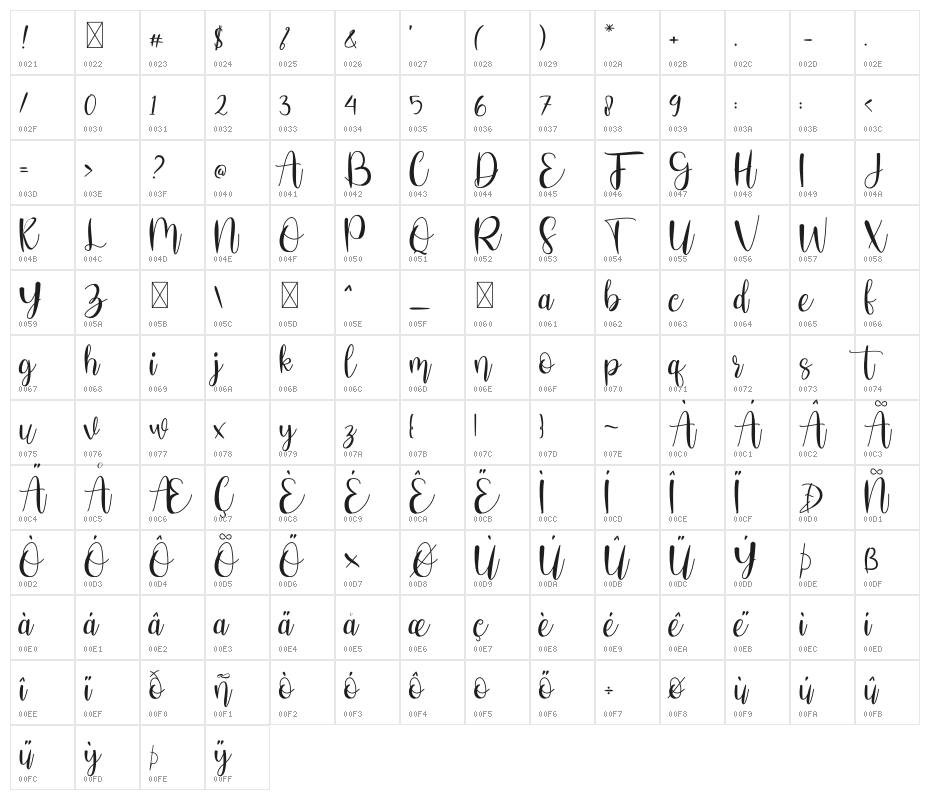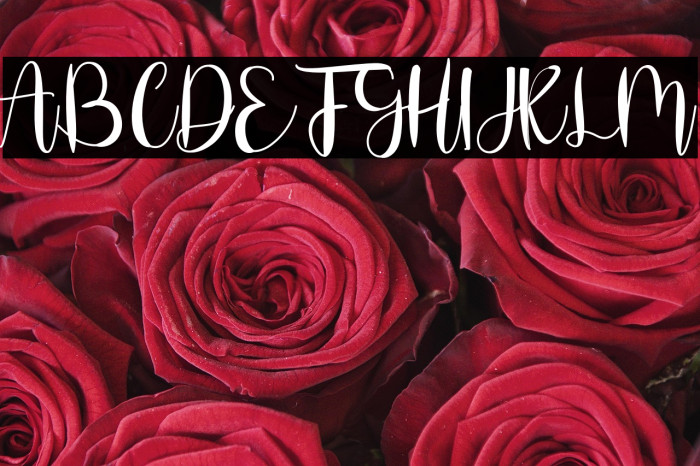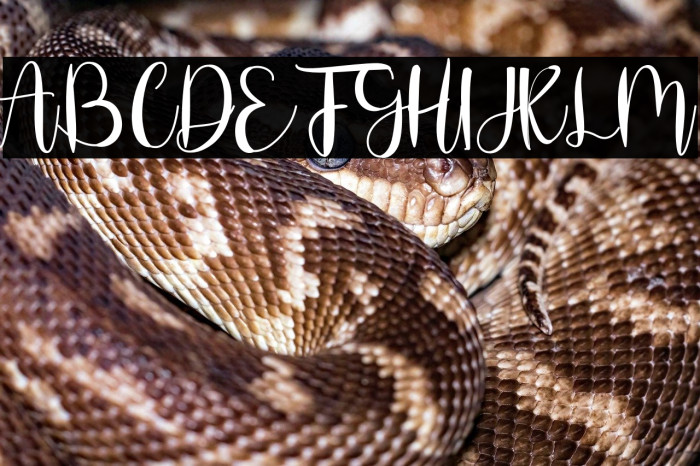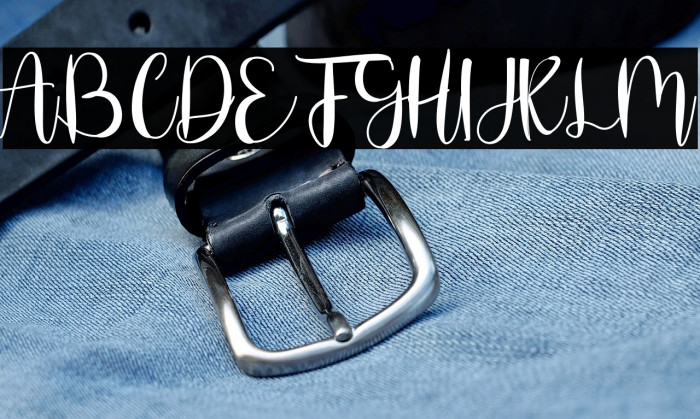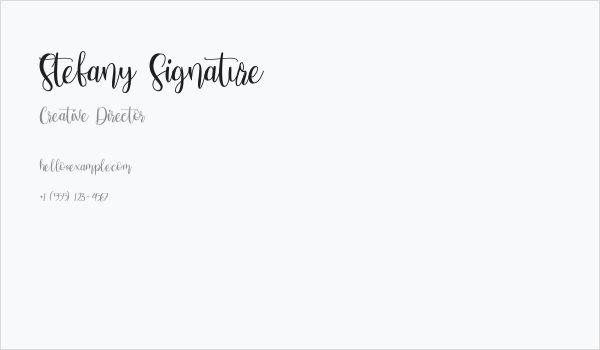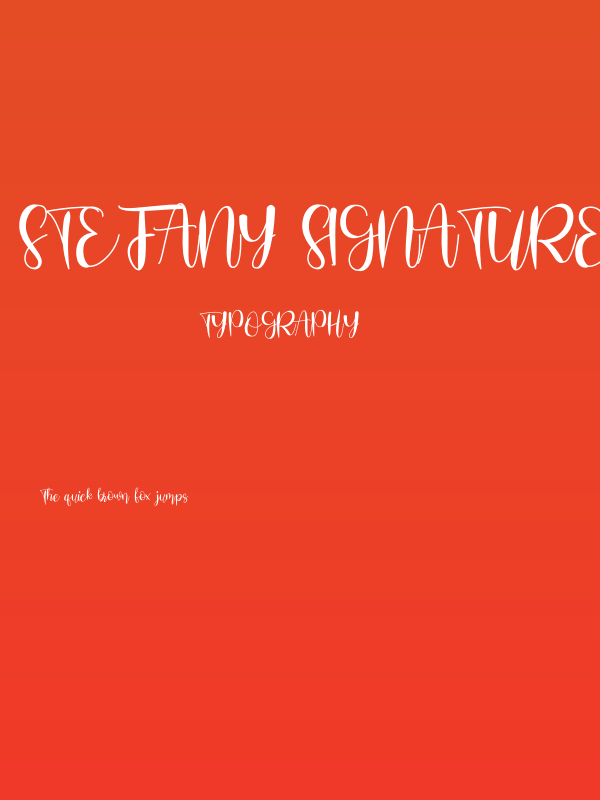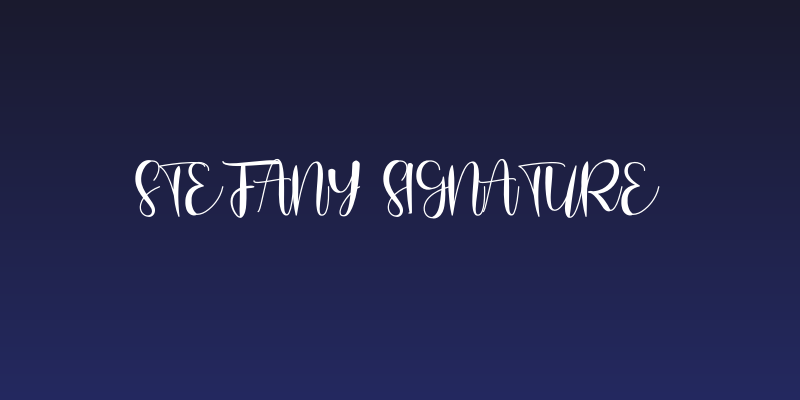
Stefany Signature Font
Stefany Signature Description
This font exudes a lively and expressive character, with its flowing script style that mimics the fluidity of handwriting. The uppercase letters are elegantly elongated with playful loops and swirls, while the lowercase letters maintain a consistent rhythm, adding a touch of whimsy. The numerals are distinct and maintain the same playful style, ensuring readability. Special characters are creatively integrated, enhancing the font's versatility. The overall appearance is both sophisticated and approachable, making it suitable for a variety of design projects.